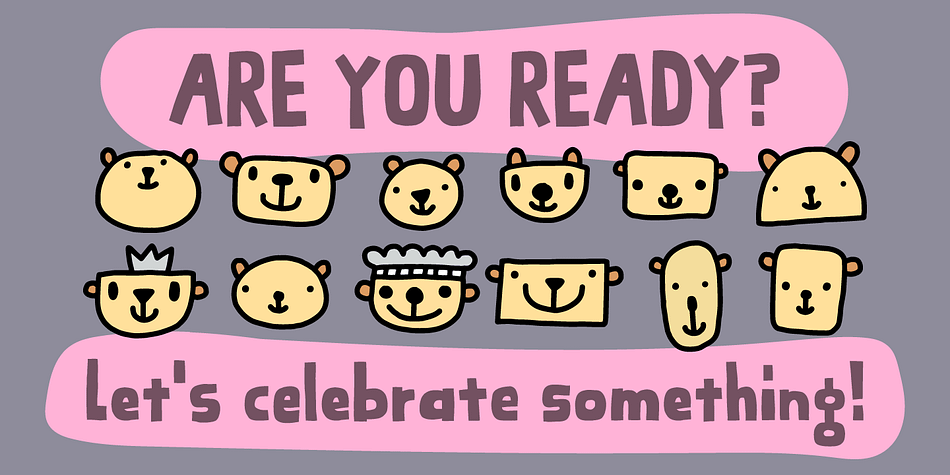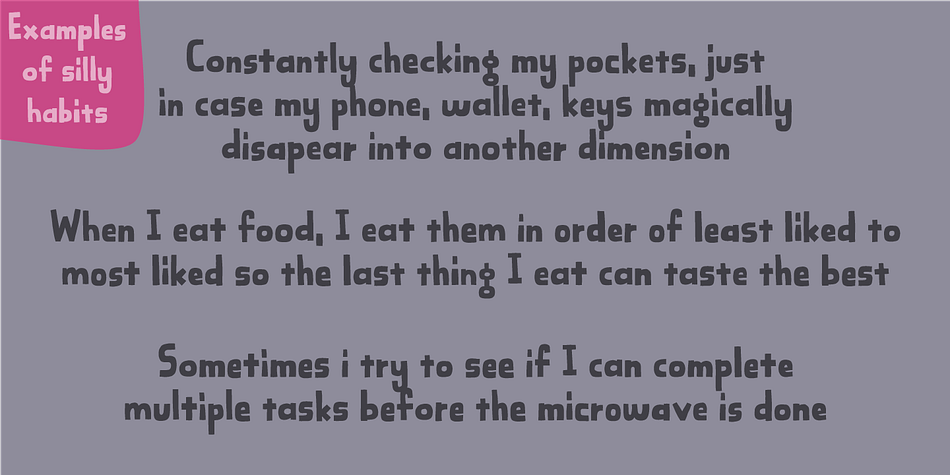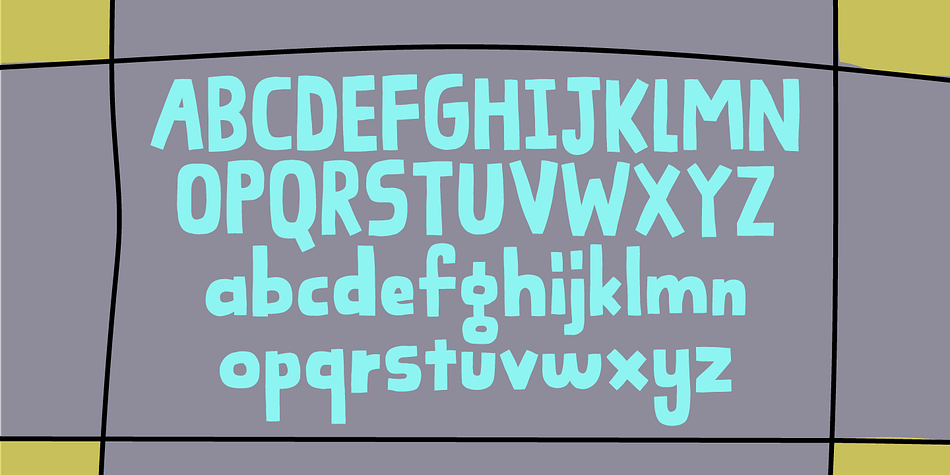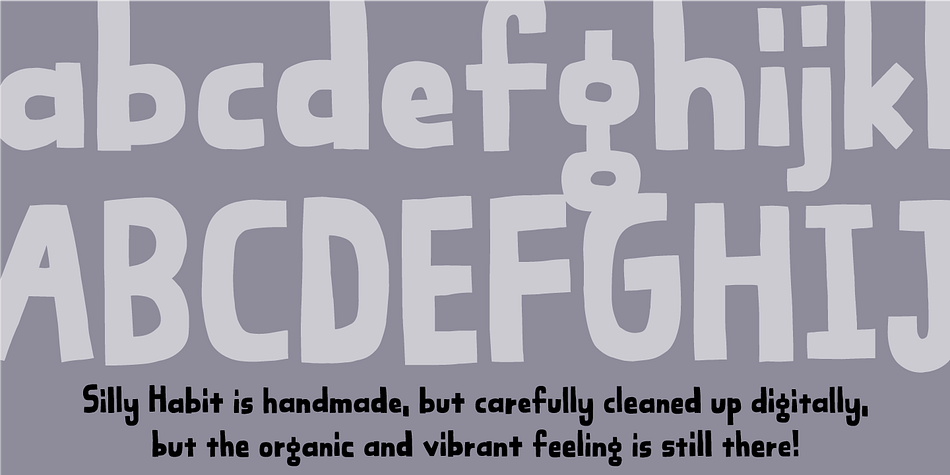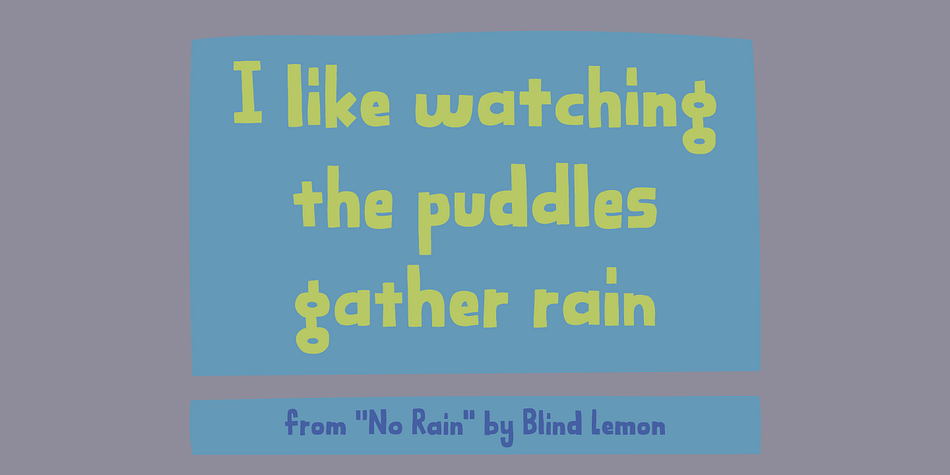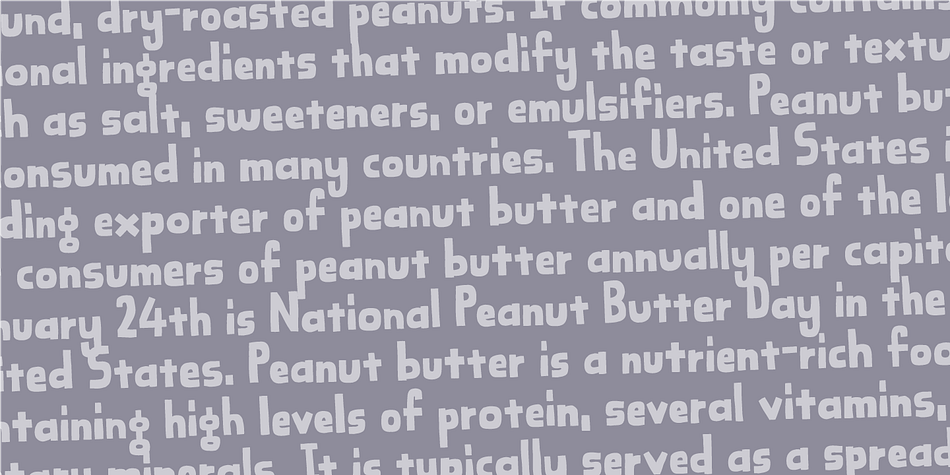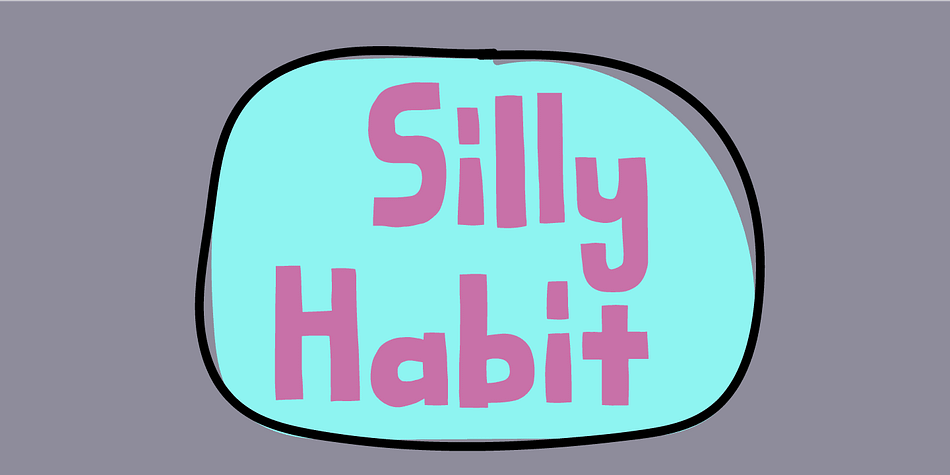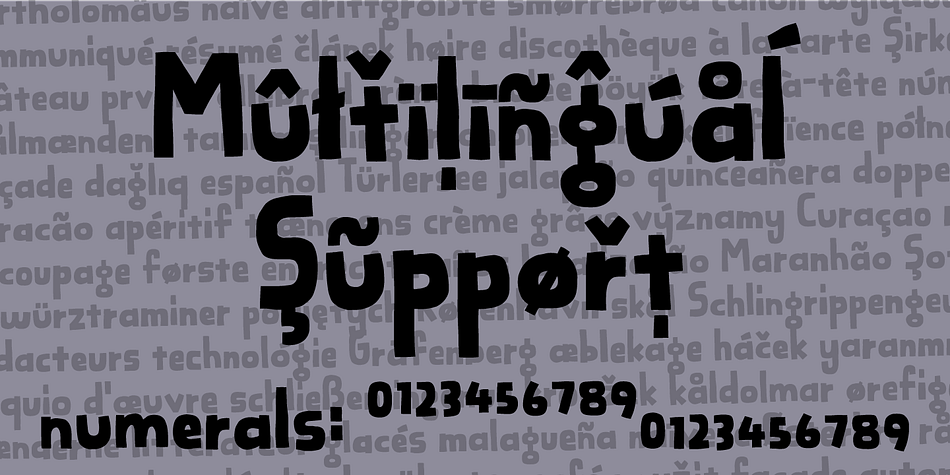
Designed by Jakob Fischer, Silly Habit is a hand display and kids font family. This typeface has two styles and was published by Bogstav.
Don’t we all have a silly habit? I’ve got mine, for sure! - like checking whether I remembered to bring my keys, immediately after locking the door…and then checking again like 2 minutes later!
Silly Habit is my laid back comic font, easy to read and fresh enough for a design that needs an extra party to it!
Comes with contextual alternates, which in this case means 4 different versions of each lowercase letter